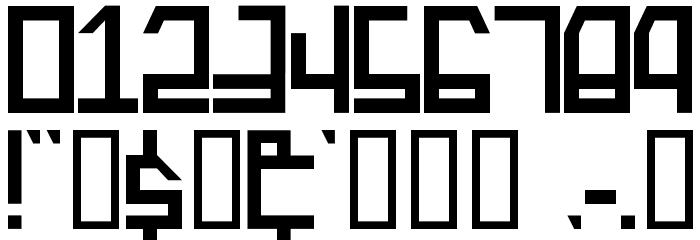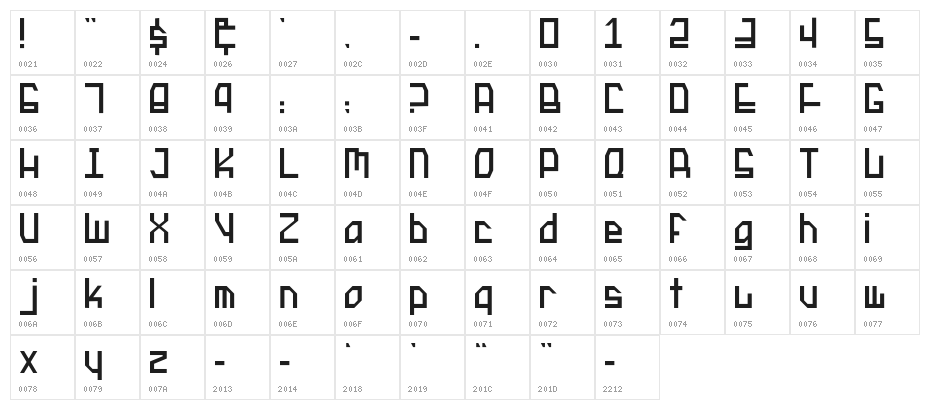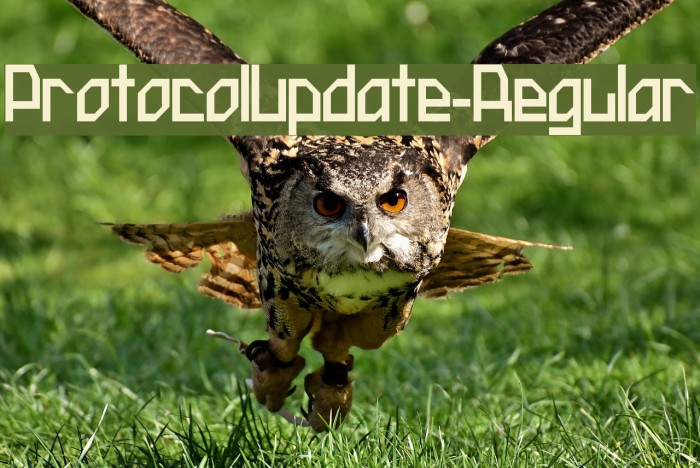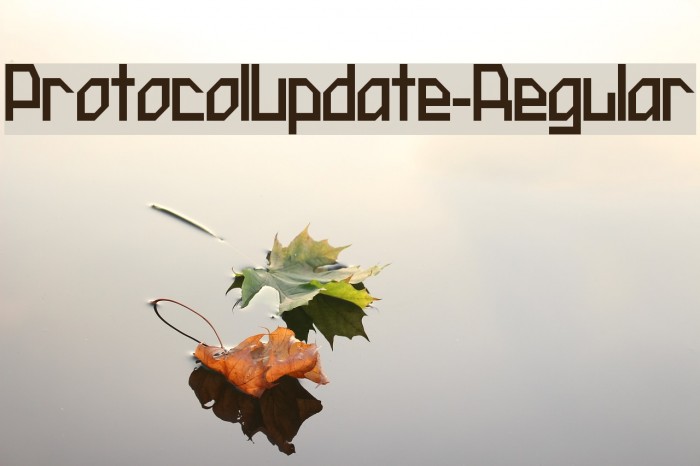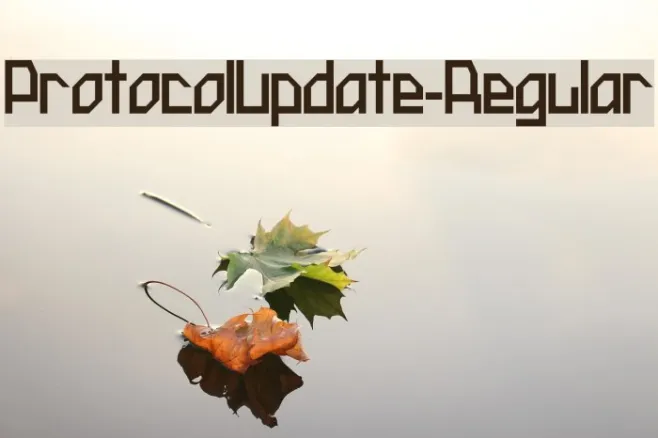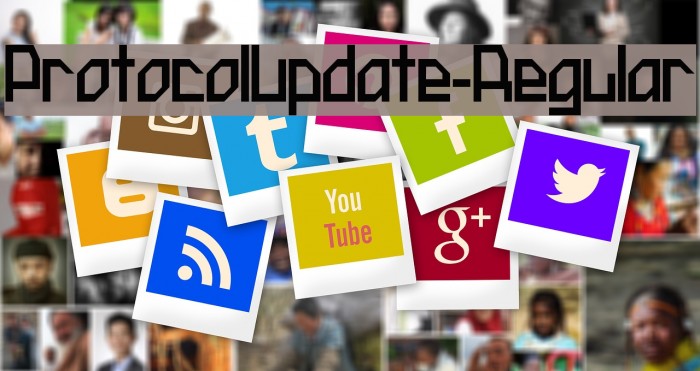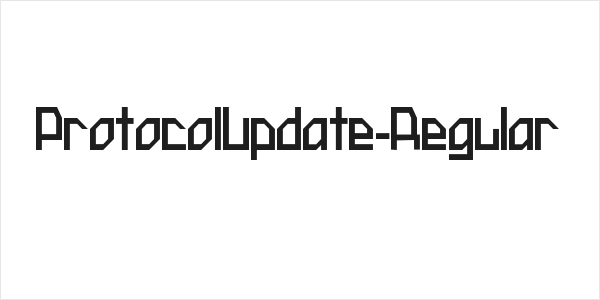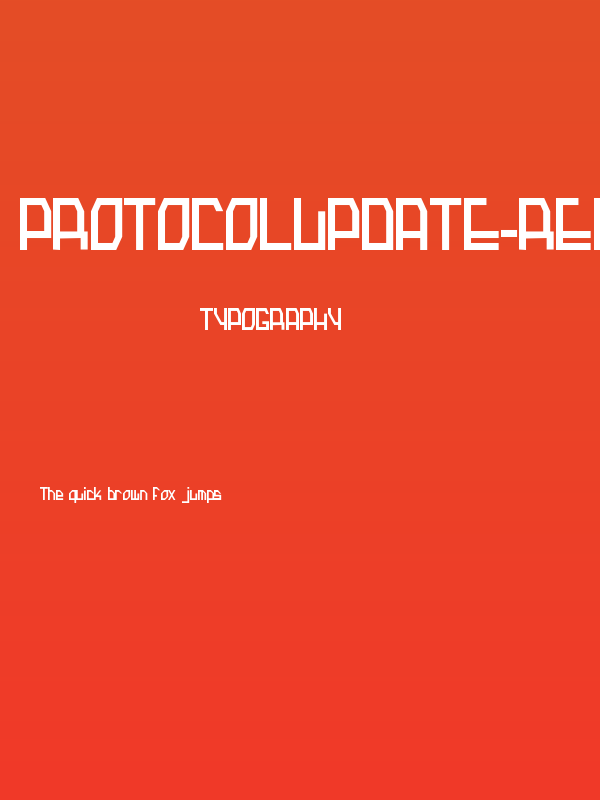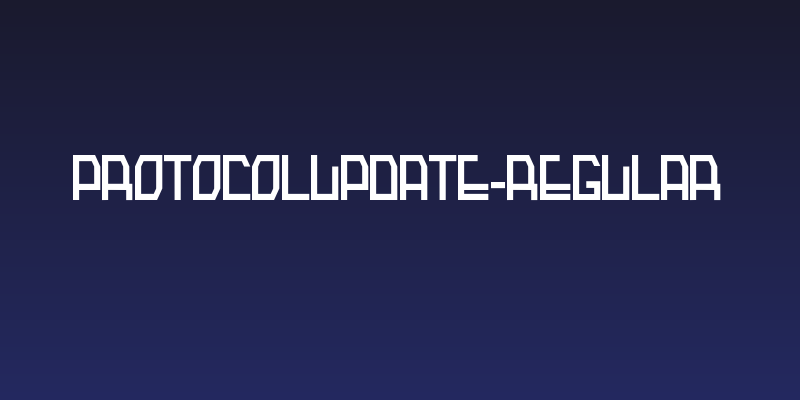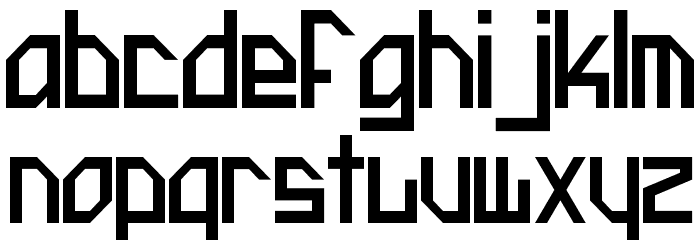
ProtocolUpdate-Regular Font
ProtocolUpdate-Regular Description
This font features a geometric and futuristic design, characterized by its angular and blocky letterforms. The uppercase and lowercase letters maintain a consistent height, creating a uniform appearance. The numerals and special characters follow the same angular style, enhancing the cohesive look. The font's structure is bold and impactful, with a strong presence that makes it suitable for attention-grabbing designs. Its unique style is reminiscent of digital or technological themes, making it ideal for projects that require a modern and edgy aesthetic.
| Proposed Projects | Ideal for technology-themed designs, video game graphics, sci-fi posters, and modern branding. |